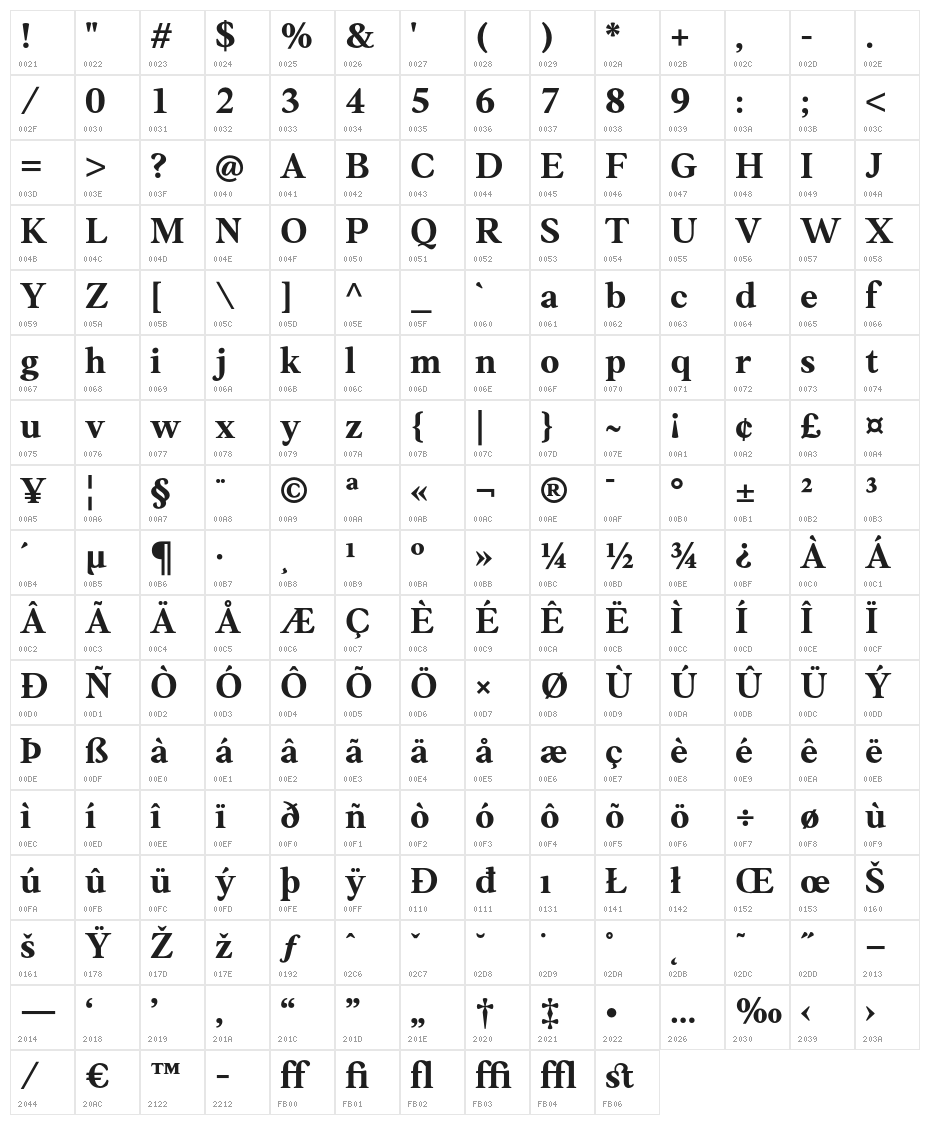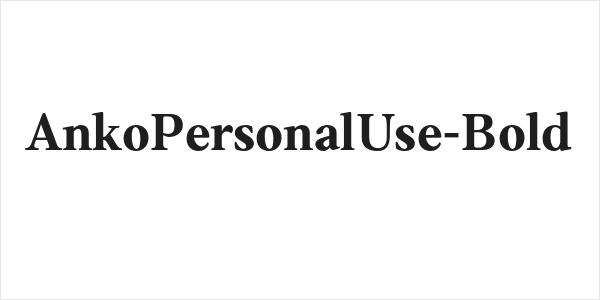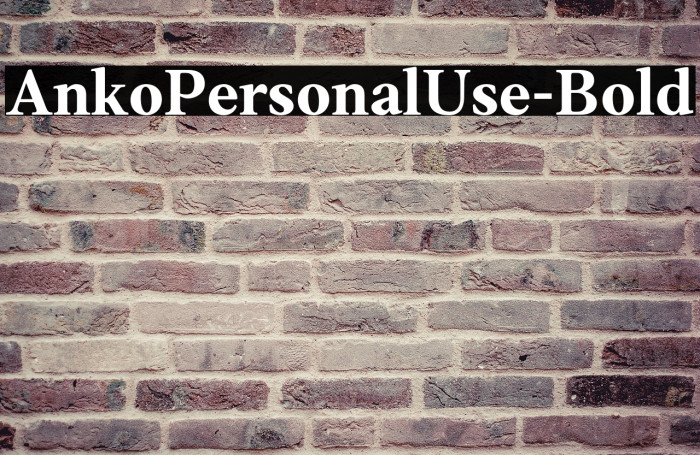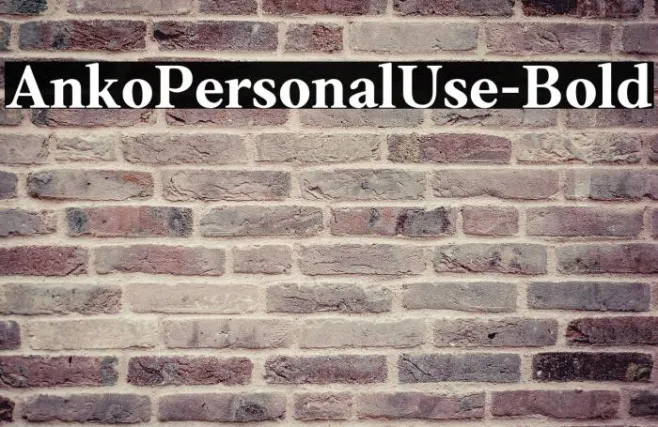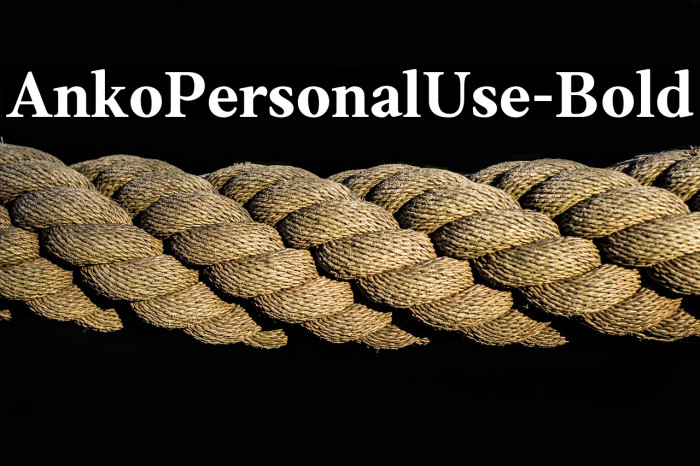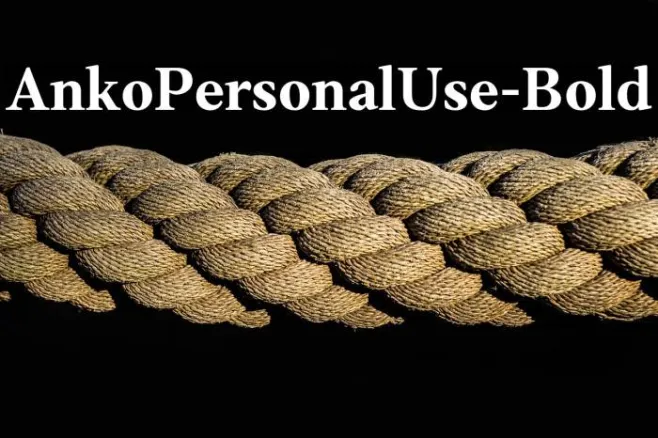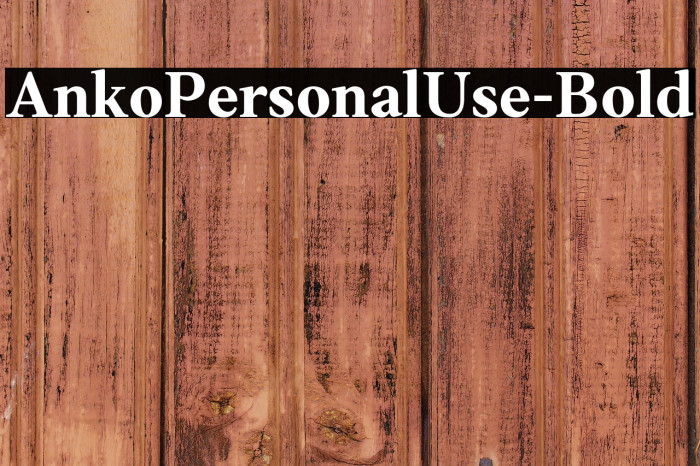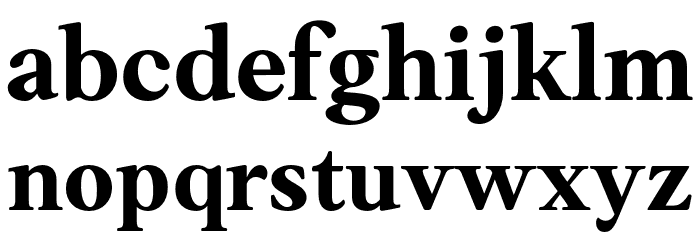
AnkoPersonalUse-Bold Font
AnkoPersonalUse-Bold Description
This font exhibits a bold and classic serif style, characterized by its strong and pronounced strokes. The serifs are well-defined, adding a traditional touch to the overall appearance. The uppercase letters are robust and commanding, while the lowercase letters maintain a consistent weight, offering a harmonious balance. The numerals are clear and legible, making them suitable for various applications. Special characters are designed with the same attention to detail, ensuring uniformity across the typeface. The font's boldness makes it ideal for making statements, while its classic serif features lend it an air of sophistication and timelessness.
| Use Case | Headlines, Logos, Editorial Design |
| Proposed Projects | Ideal for book covers, editorial design, branding, and formal invitations. |